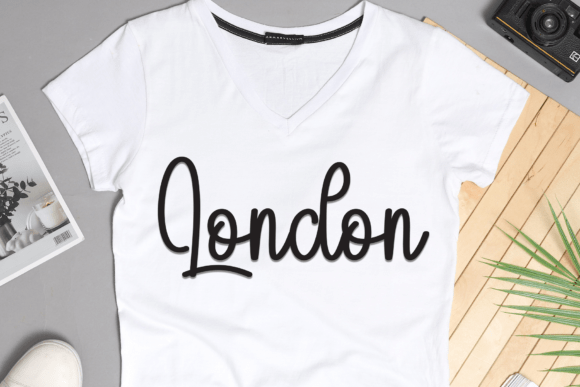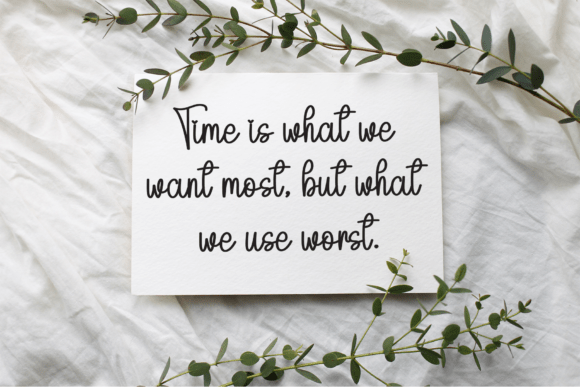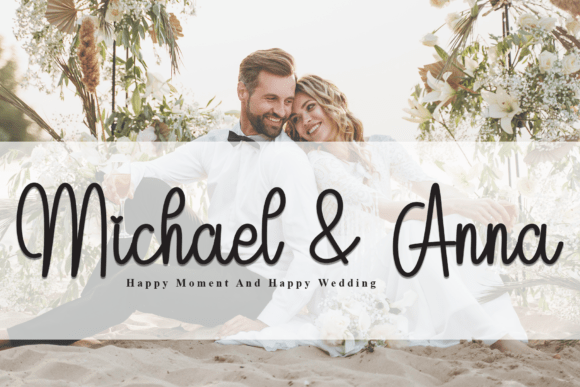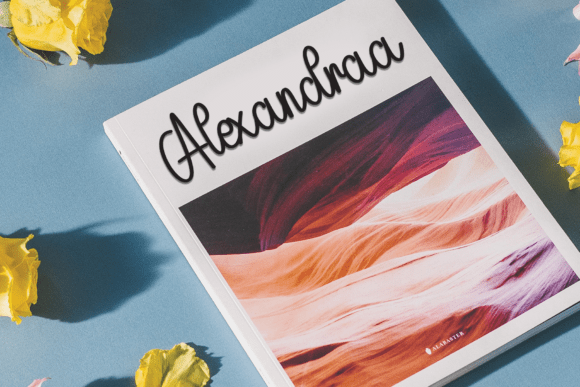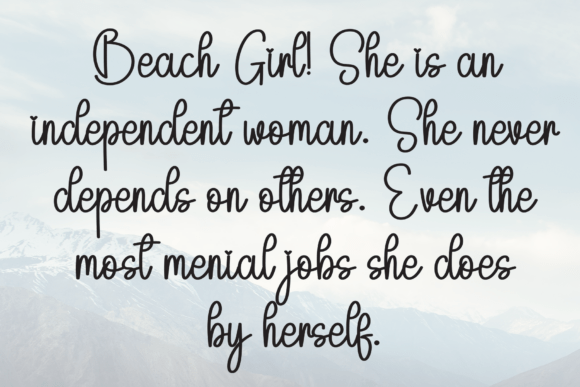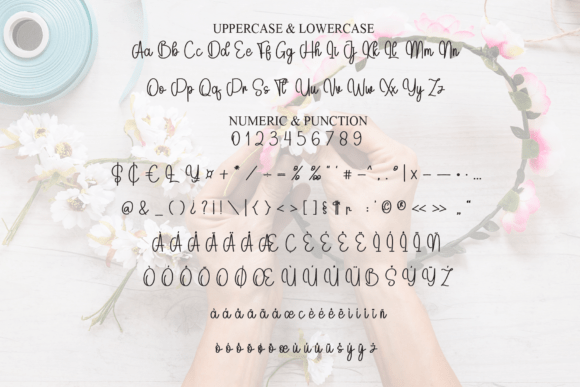
The Power of Personal Touch: Unlocking the Potential of Creative Font
Do you ever find yourself doodling in a notebook, lost in a world of scribbles and sketches, and suddenly, an idea strikes? The thrill of creative expression is what drives us, and for designers, it’s about bringing that spark to life. One of the most effective tools in their arsenal is the Creative Font, a stylish handwritten script that adds a personal touch to any design.
This elegant font is designed to evoke a sense of modern sophistication, while its playful curves and fluid strokes make it perfect for logos, packaging, and invitations. Whether you’re a seasoned pro or just starting out, the Creative Font is a valuable asset in your toolkit, allowing you to add warmth, creativity, and a touch of personality to every project you take on.
Creative Font Key Features
- Unique Characteristics: The Creative Font features a unique blend of modern and traditional elements, with intricate details and subtle flourishes that set it apart from other fonts.
- Kerning and Ligatures: The font includes advanced kerning and ligature features, ensuring smooth and professional text layout in any application.
Designer Review: Creative Font
I recently had the chance to work with the Creative Font, and I’m excited to share my honest review with you. Overall, I was impressed with the font’s unique style and versatility.
- Unique style: The Creative Font has a distinctive flair that sets it apart from other fonts. Its bold lines and intricate details make it perfect for projects that need a touch of personality.
- High legibility: Despite its complex design, the font is surprisingly easy to read, making it suitable for body text as well as headings.
- Great for creative industries: The font’s playful, artistic vibe makes it an excellent choice for designers, artists, and writers who want to add a touch of whimsy to their work.
- Not suitable for corporate or formal projects: While the Creative Font is perfect for creative industries, it may not be the best choice for corporate or formal projects that require a more traditional, professional look.
- Limited font sizes: I found that the font doesn’t scale well to very large or very small sizes, which can make it difficult to use in certain contexts.
Overall, I’m impressed with the Creative Font’s unique style and versatility. While it may not be the best choice for every project, it’s an excellent addition to any designer’s toolkit. With its high legibility and artistic flair, it’s sure to add a touch of creativity to any design.
Creative Font is ideal for:
1. Branding and logo design.
2. Creative advertising and marketing materials.
3. Digital art and graphic design projects.
4. Editorial and publishing content.